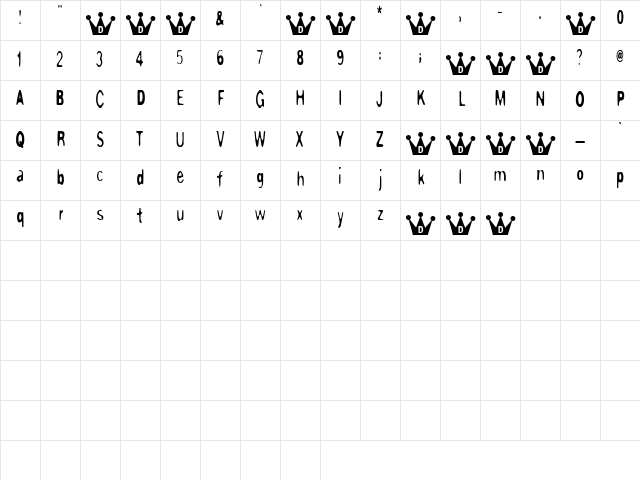
PaperTiger Regular Free Font
PaperTiger Regular
Design Context for PaperTiger
PaperTiger is a composed and adaptable typeface that performs quietly and consistently across a wide range of design contexts.